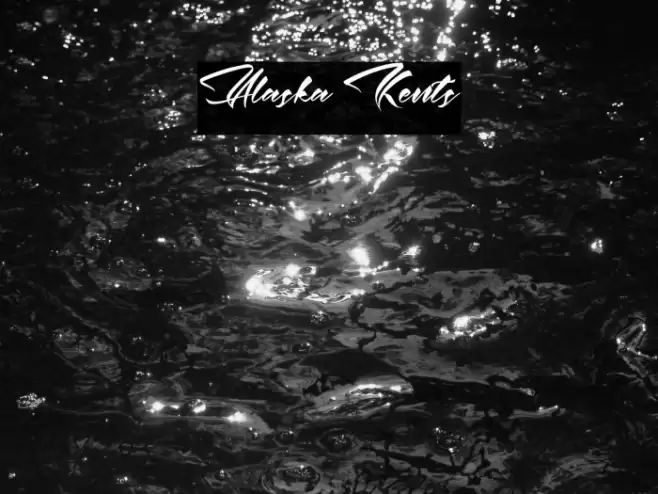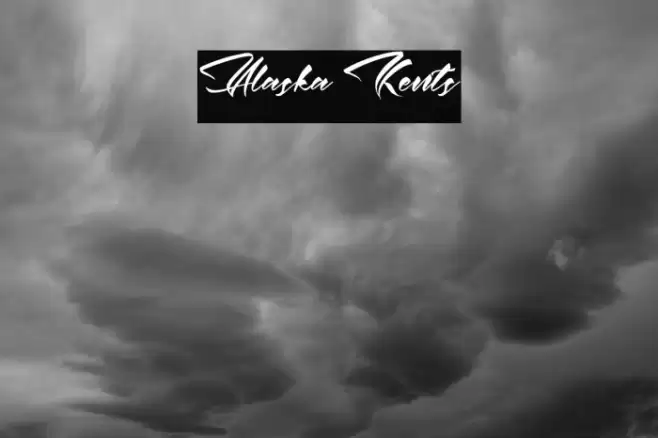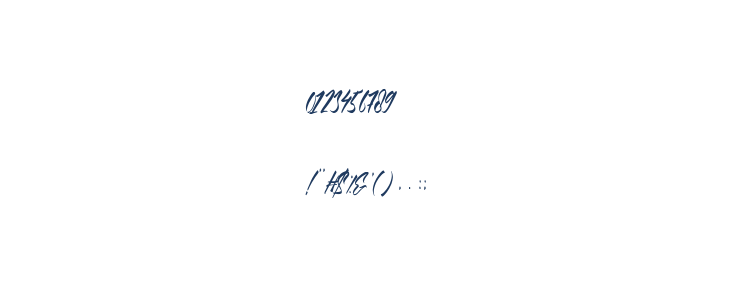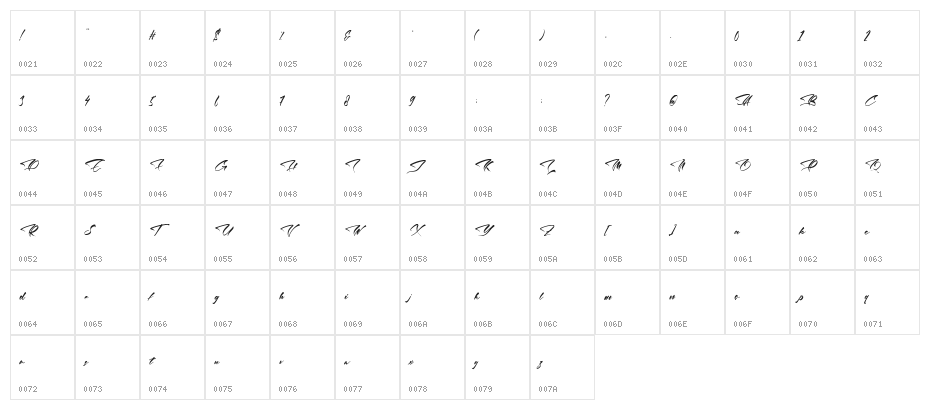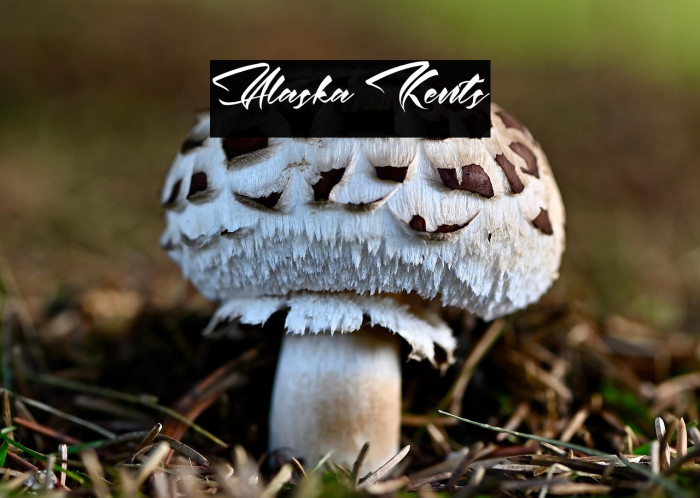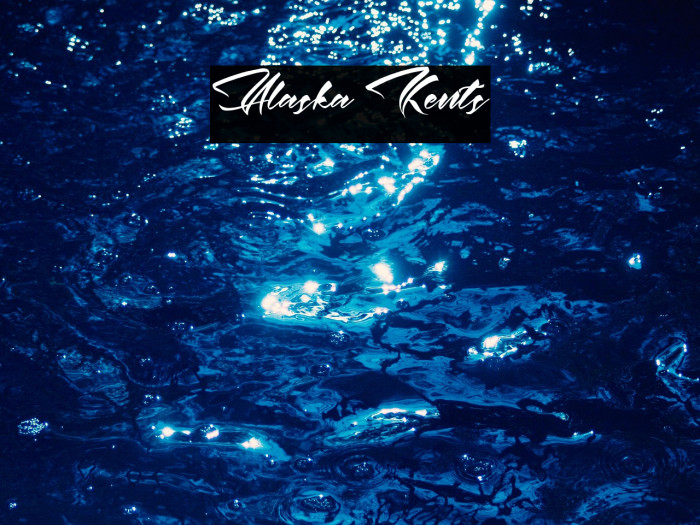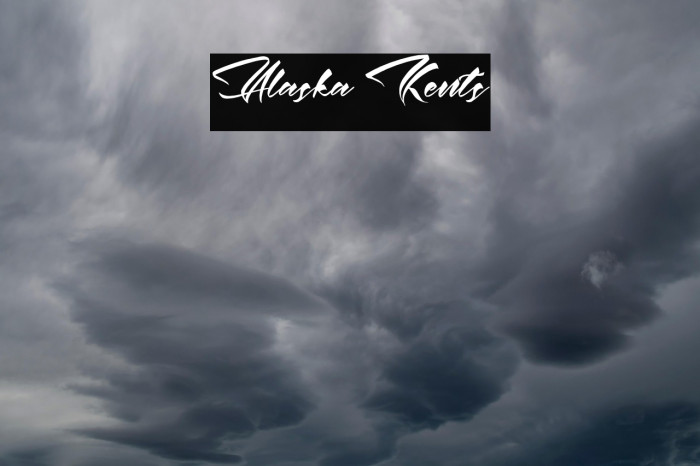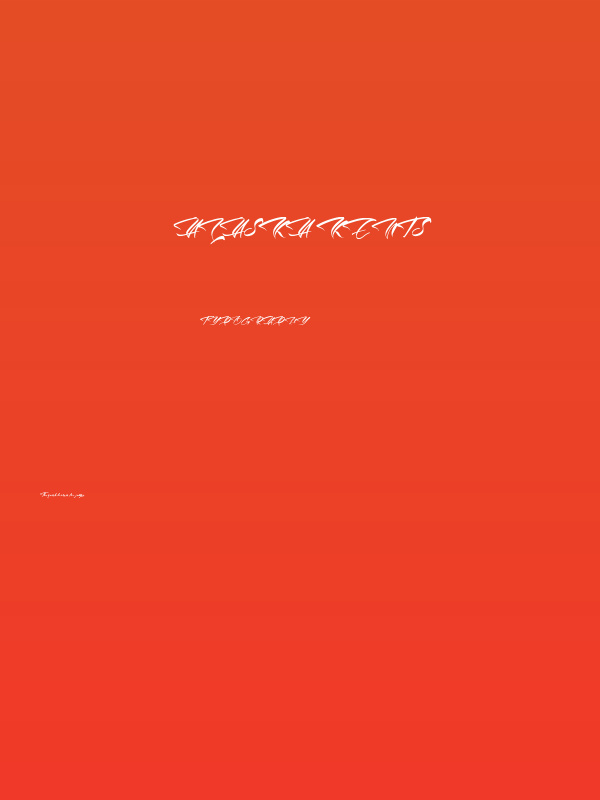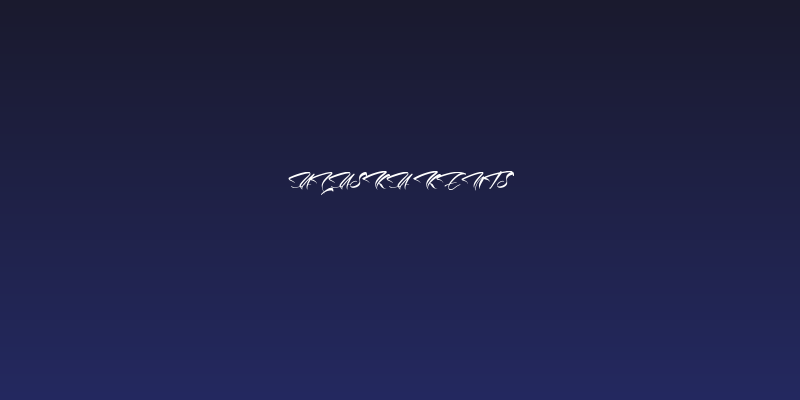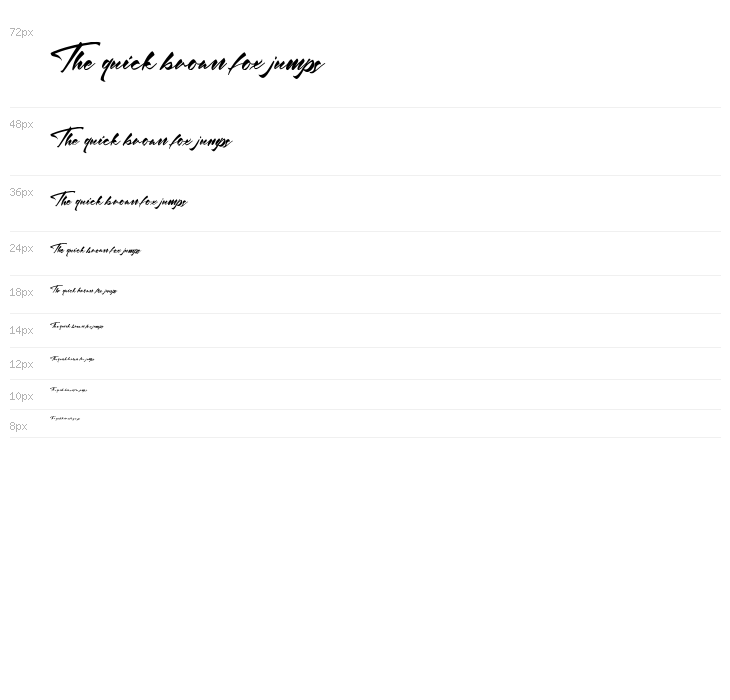
Alaska Kents Font
Alaska Kents Description
This font features an elegant and flowing script style, characterized by its sweeping curves and intricate details. The uppercase letters are particularly ornate, with exaggerated flourishes that give a sense of movement and grace. The lowercase letters maintain a consistent style, offering a smooth and connected appearance that enhances readability while retaining a sophisticated look. The numerals and special characters are designed to match the overall aesthetic, providing a cohesive and harmonious set. This font is ideal for projects that require a touch of elegance and sophistication.
An elegant and flowing script font with ornate details from Regular fonts.
- Proposed Projects: Ideal for wedding invitations, luxury branding, elegant stationery, and decorative headlines.
- Overall Style: Elegant
- Use Case: Headlines, Logos, Invitations